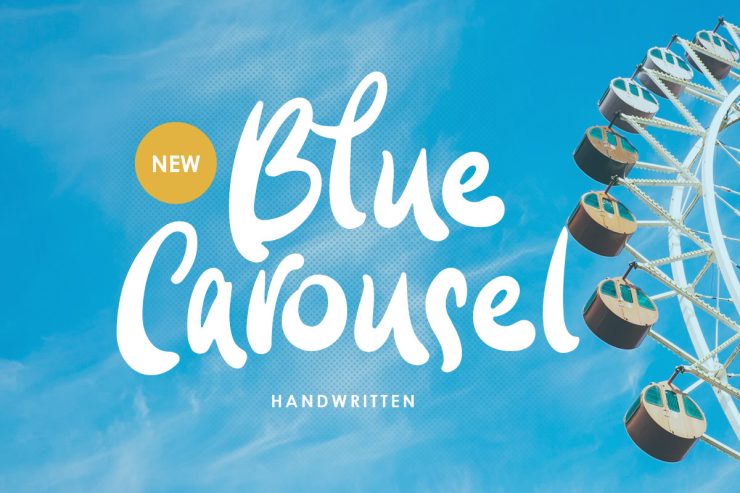
Blue Carousel – A bold handwritten script typeface with fun and playful look. This type of font perfectly made to be applied especially in logo, and the other various formal forms such as invitations, labels, logos, magazines, books, greeting / wedding cards, packaging, fashion, make up, stationery, novels, labels or any type of advertising purpose.